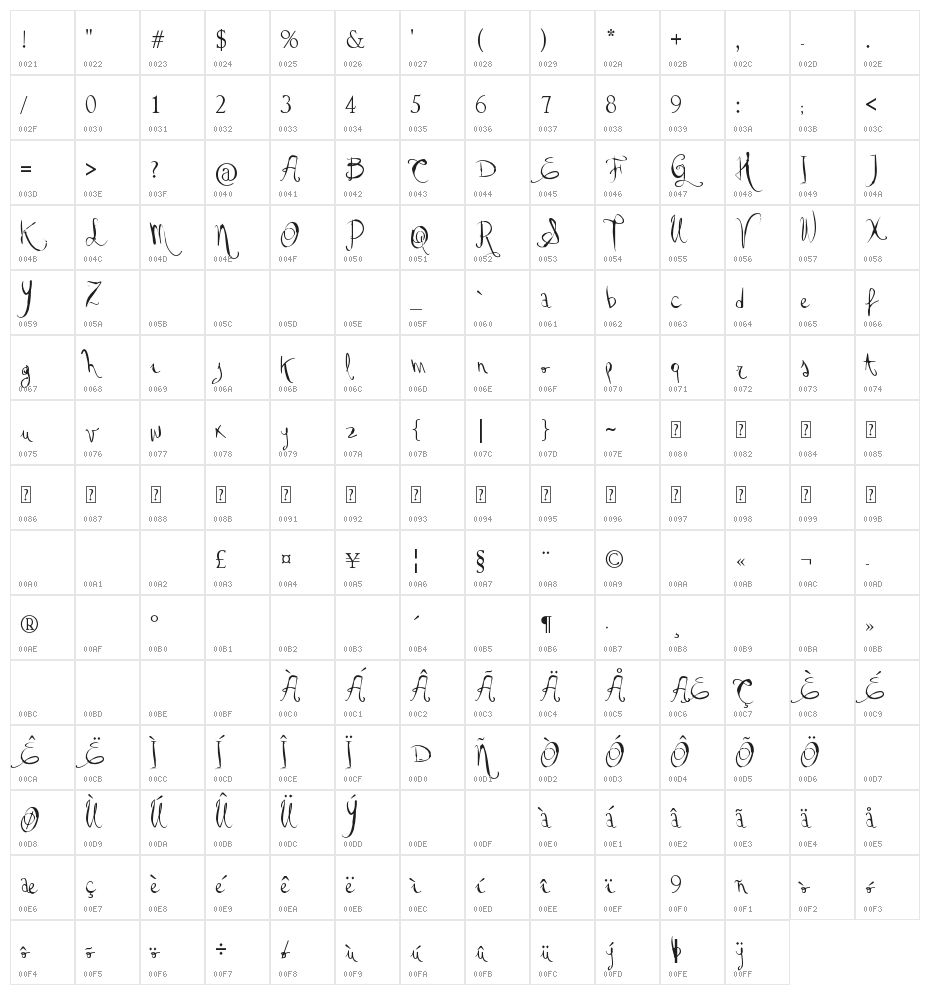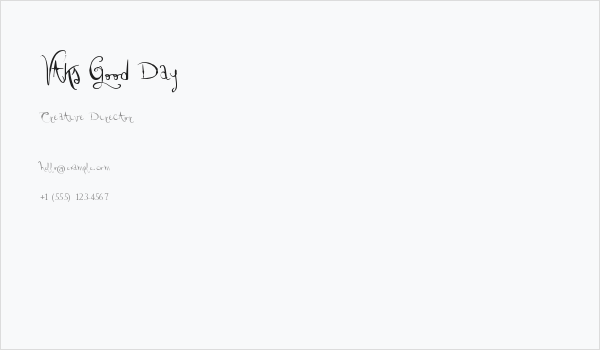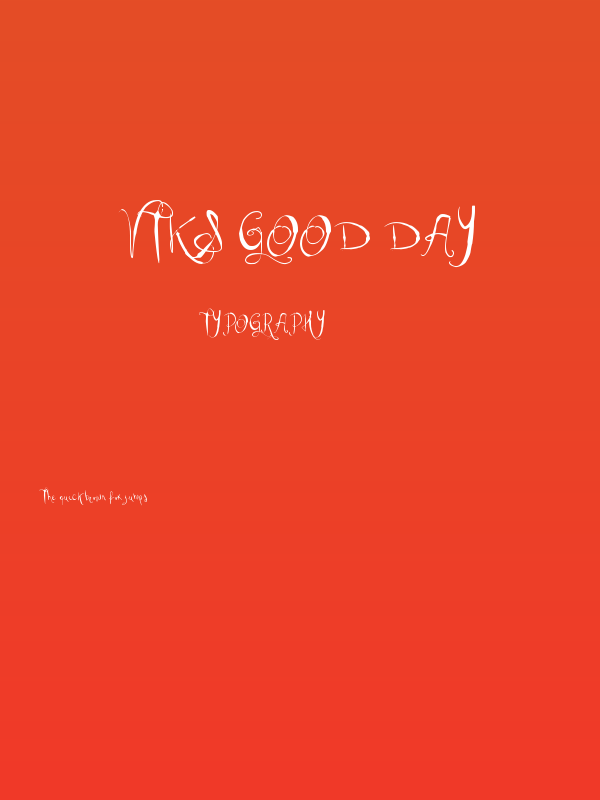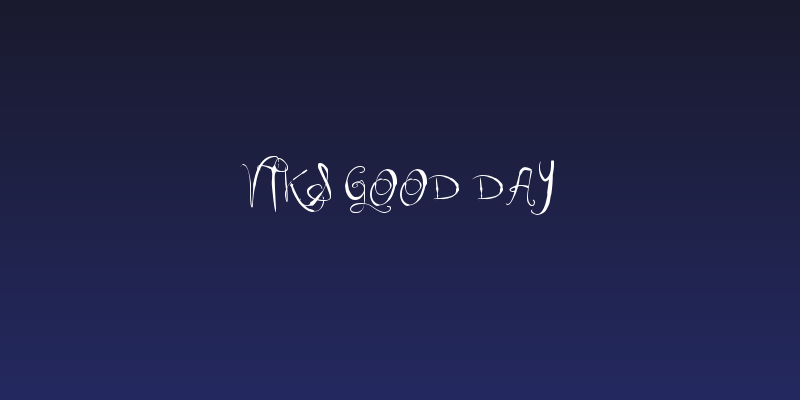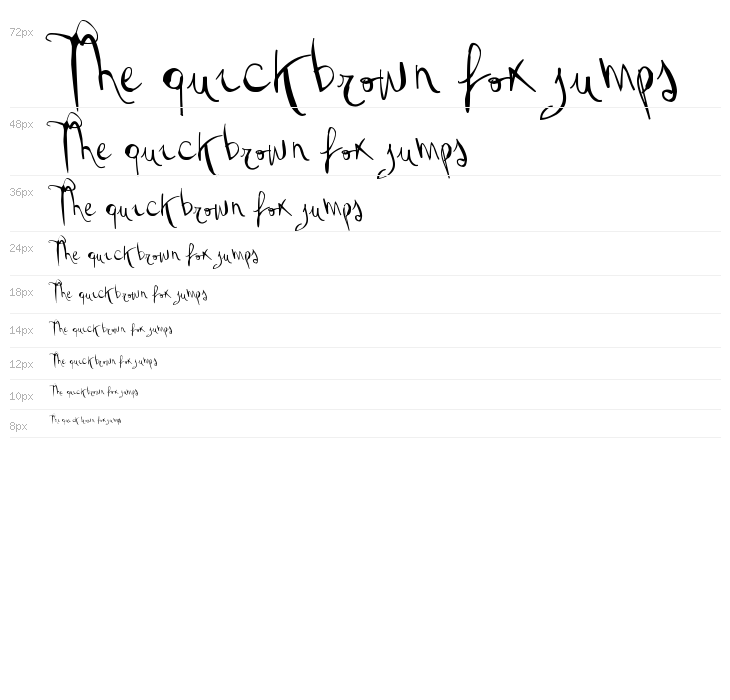
Vtks Good Day Font
Vtks Good Day Description
This font features a whimsical and artistic style, characterized by its flowing and irregular strokes. The uppercase letters exhibit a playful and dynamic form, with varying line thickness that adds a sense of movement and creativity. The lowercase letters maintain this artistic flair, with some characters featuring unique loops and curves. The numbers are consistent with the overall style, offering a quirky yet readable appearance. Special characters are integrated seamlessly, maintaining the font's distinctive personality. This font's unique design makes it suitable for creative and expressive projects.
| Use Case | Headlines, Logos, Artistic projects |
| Proposed Projects | Ideal for greeting cards, artistic posters, creative branding, and unique invitations. |